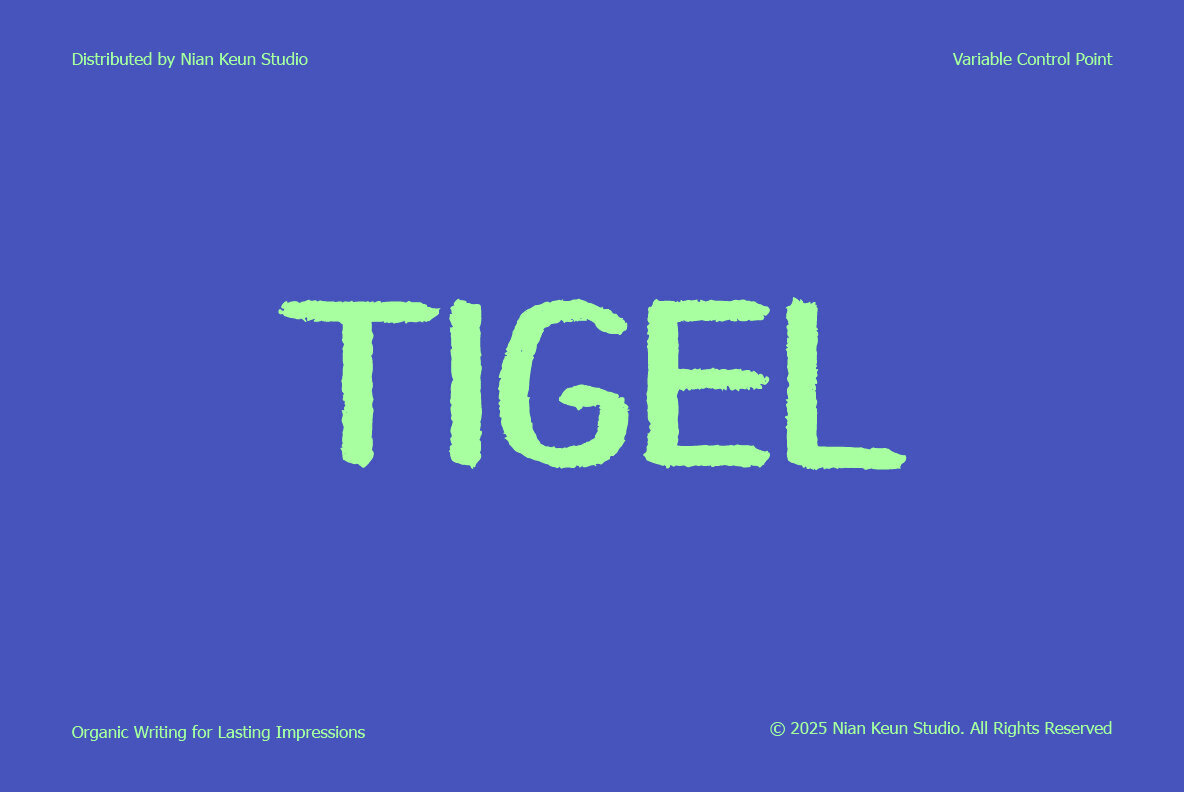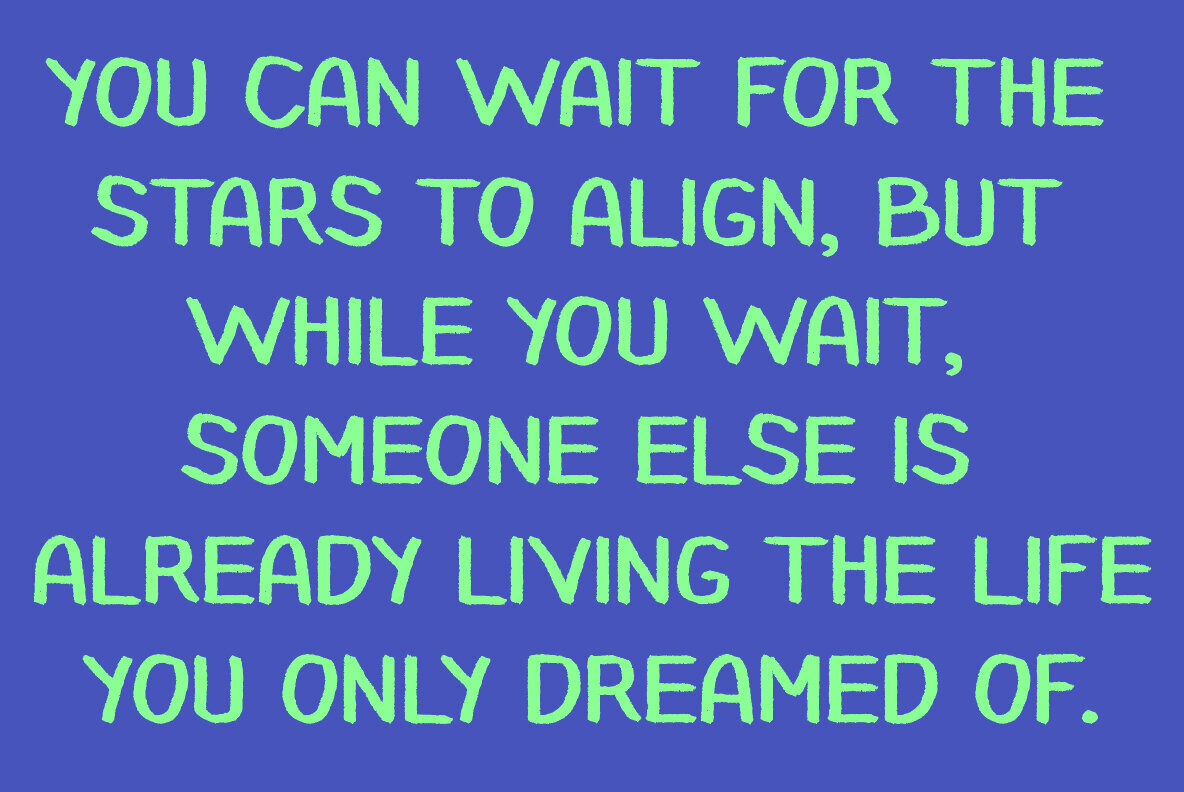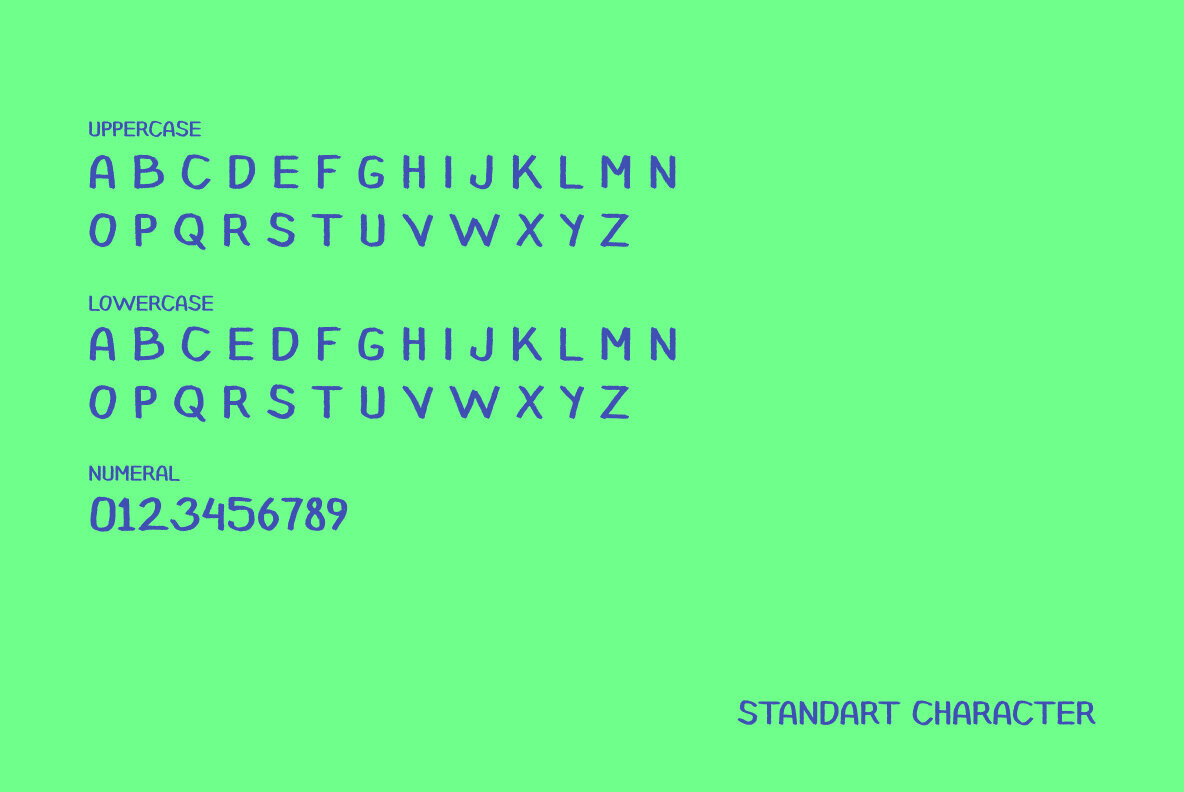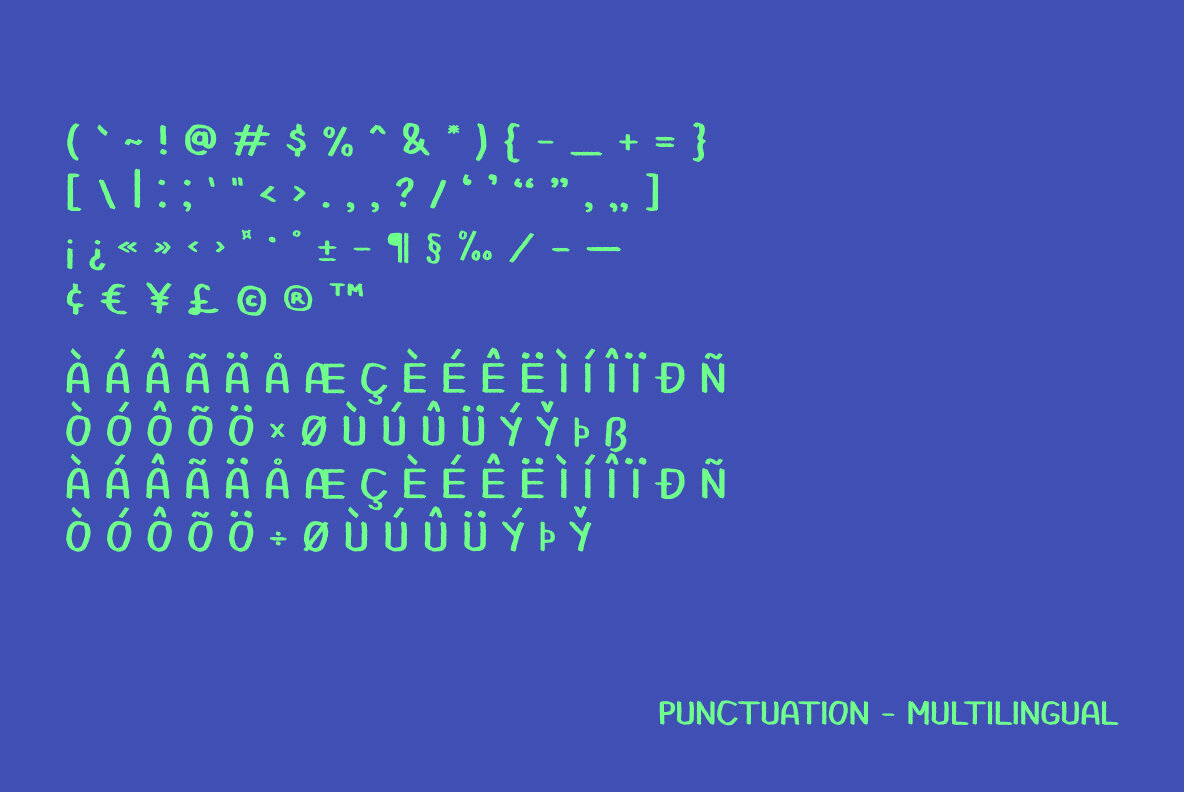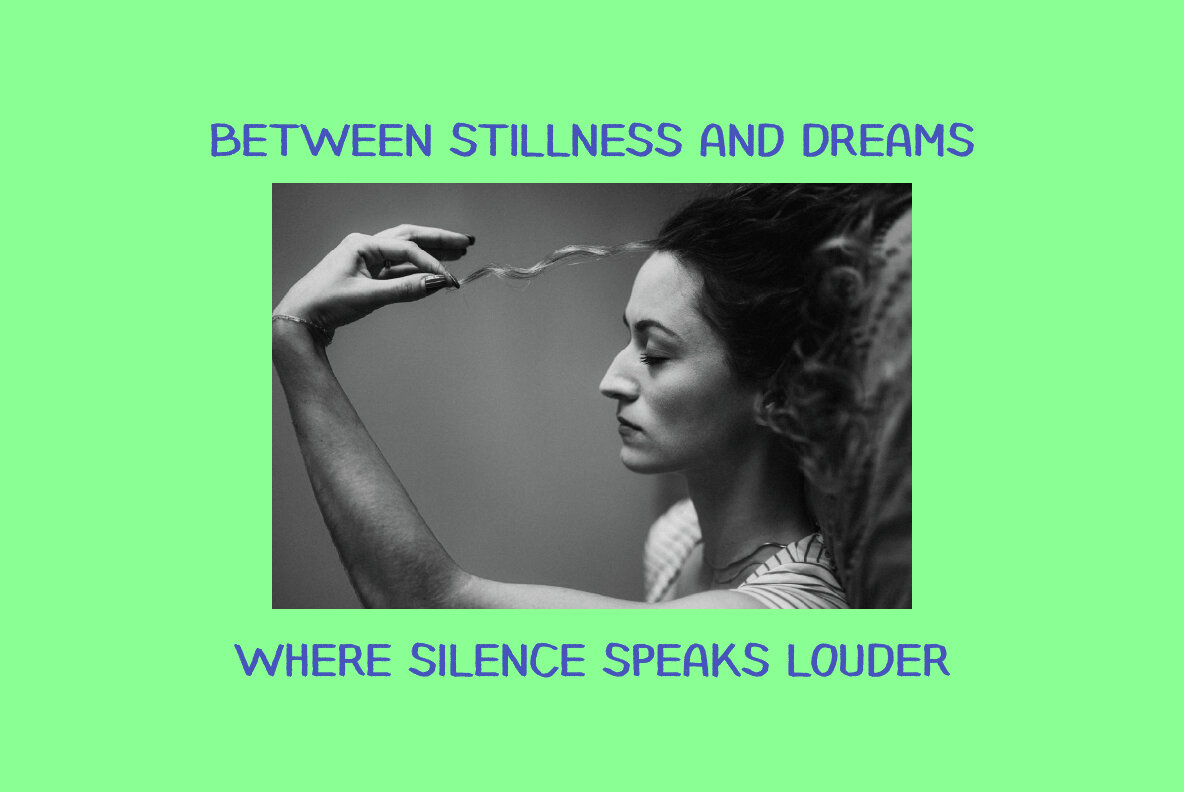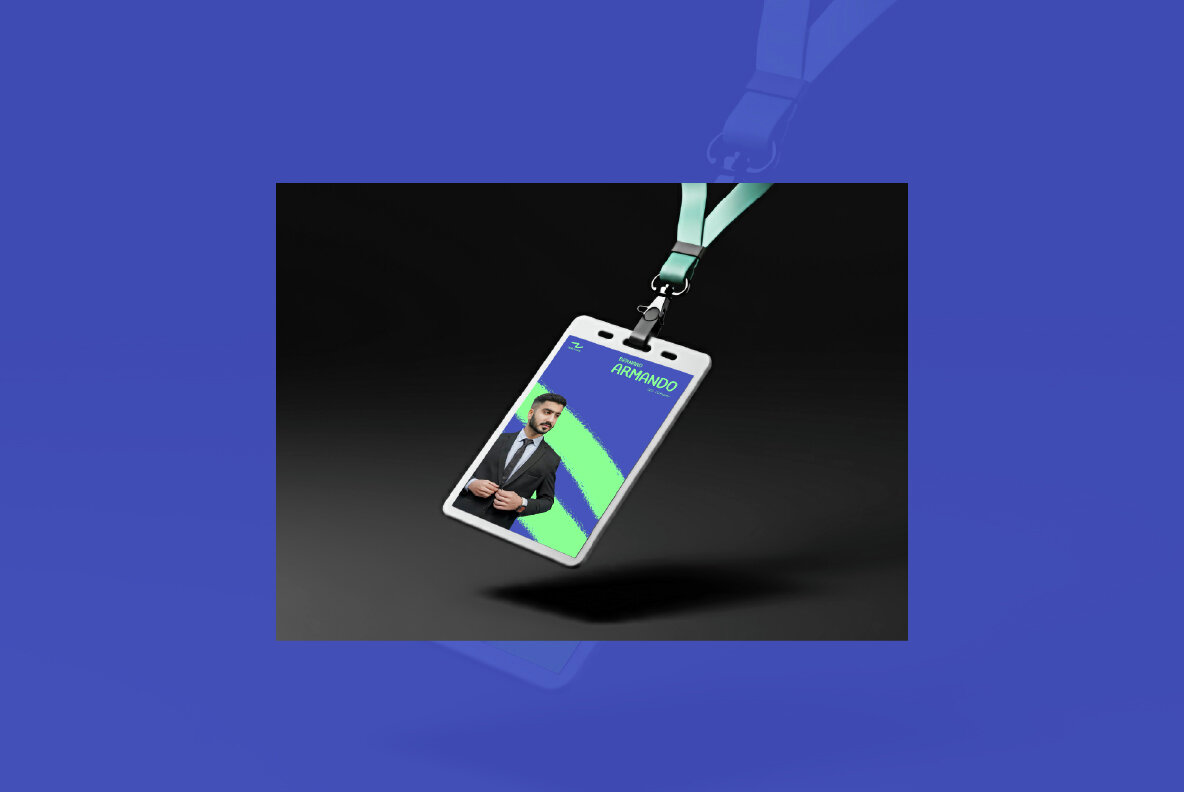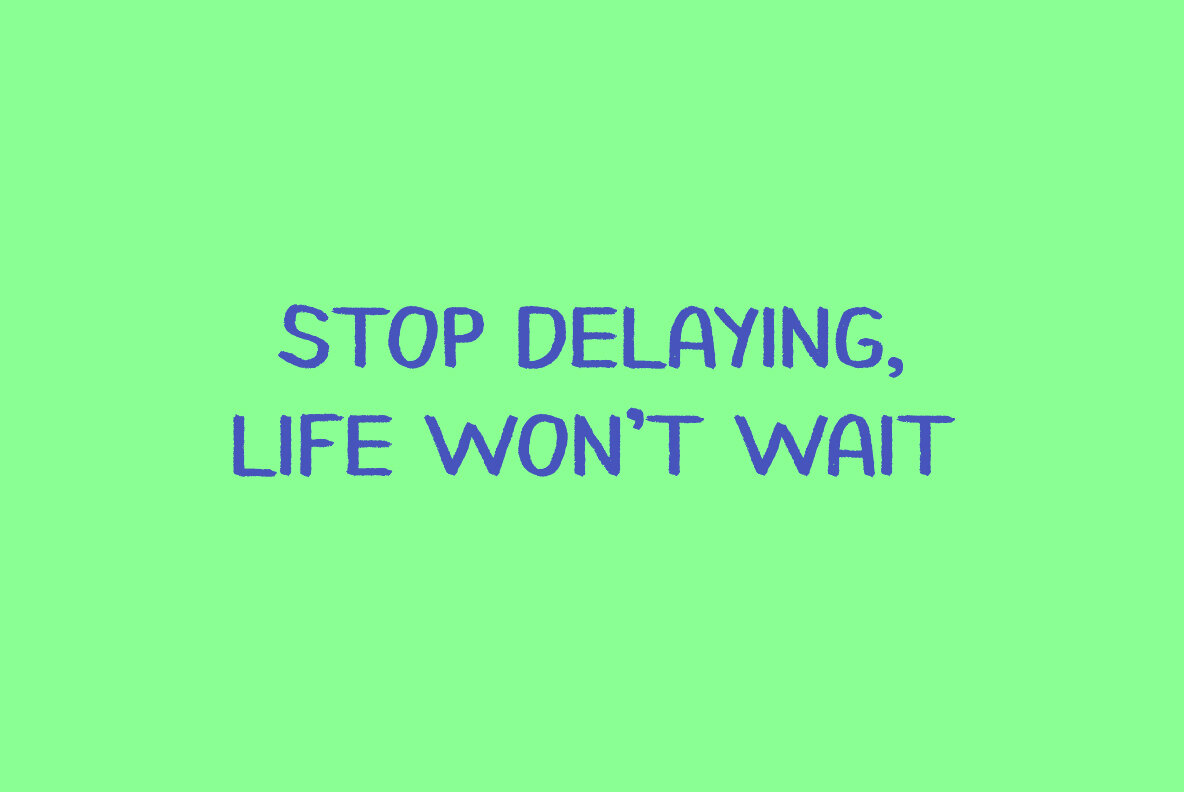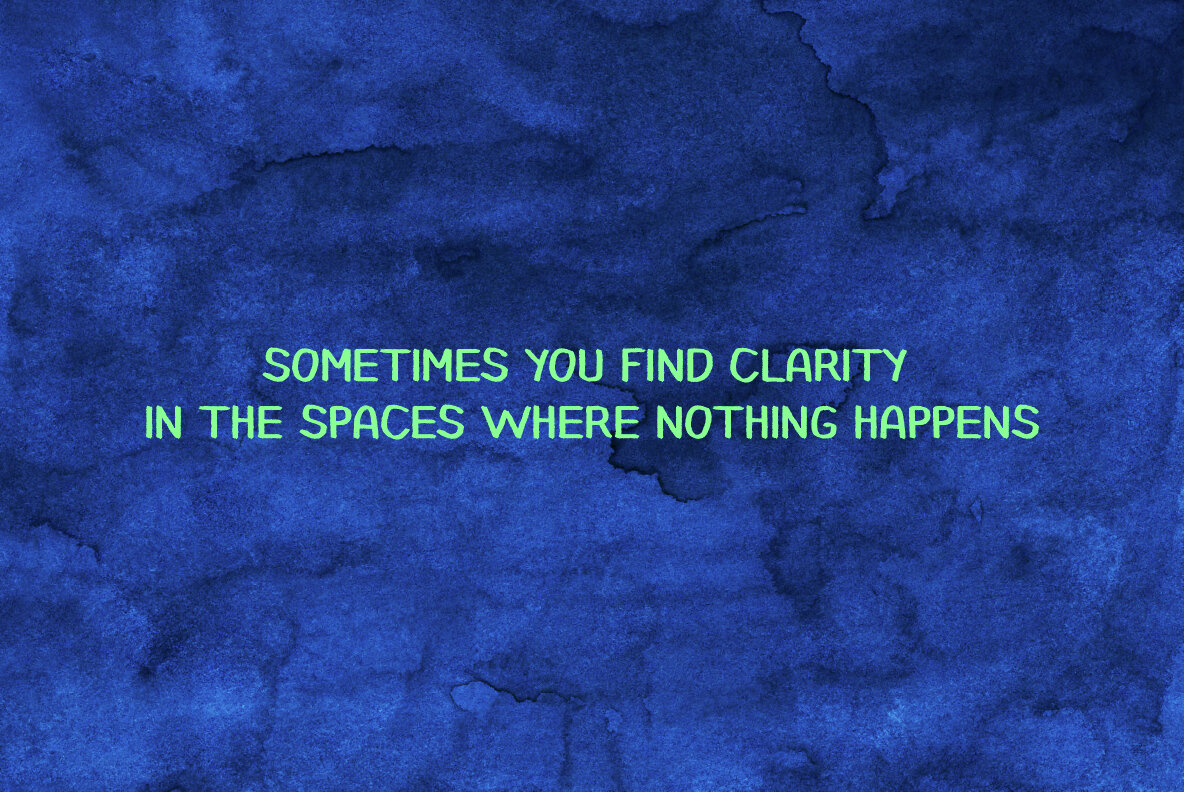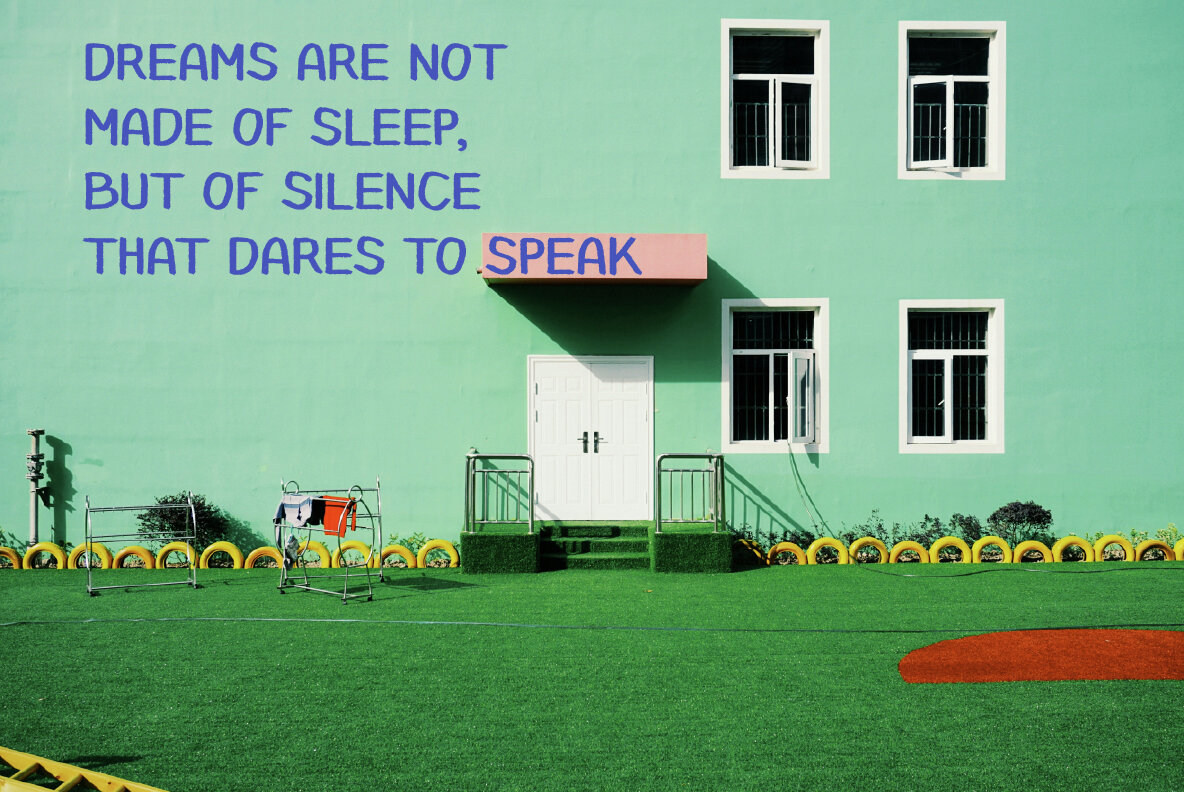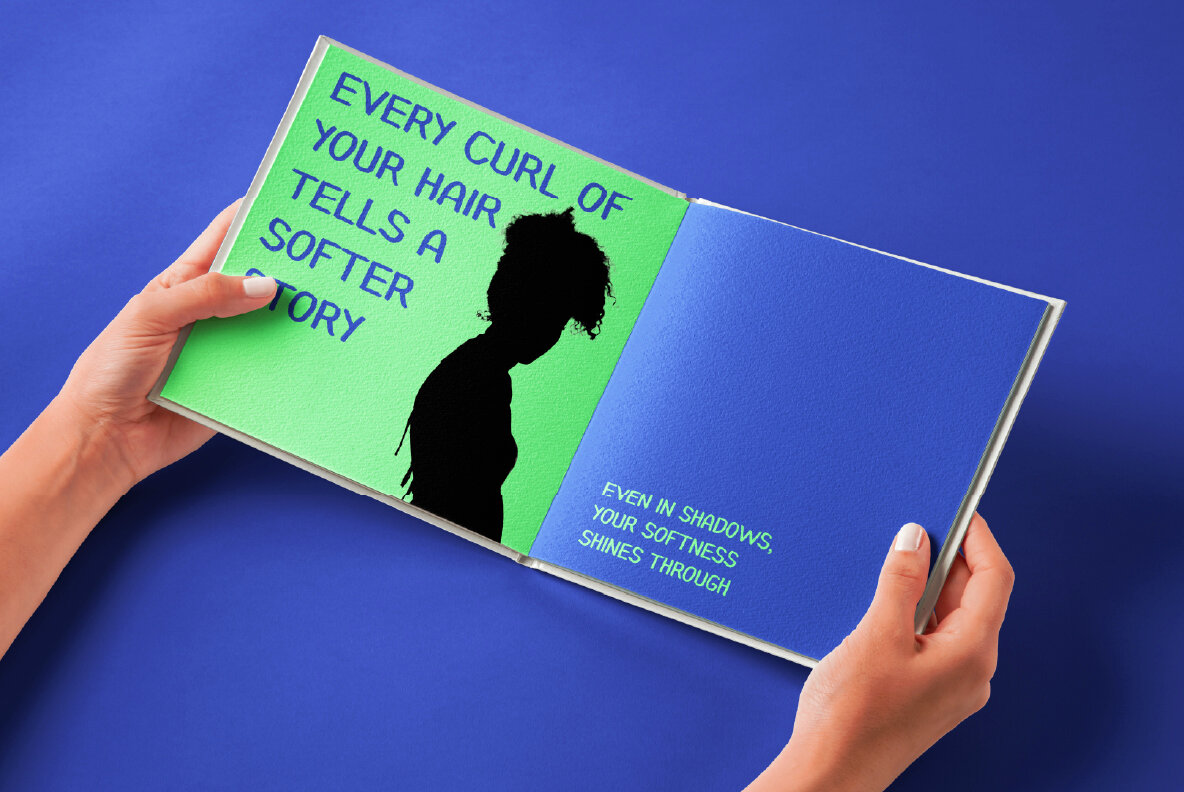
TIGEL Font
Tigel
With its captivating organic strokes and rugged texture, Tigel is a display typeface that stands out in any design setting. Its handcrafted appearance imbues each project with a sense of authenticity and vitality, ensuring visibility while maintaining exemplary readability. This typeface is ideal for endeavors that require a raw, human touch in their visual language. Tigel's innovative Variable Control Point technology offers seamless adaptability across a variety of design needs. Whether revitalizing bold posters or defining expressive branding, this font provides both versatility and visual impact, elevating each composition with ease.Tigel: A Distinctive Display Typeface